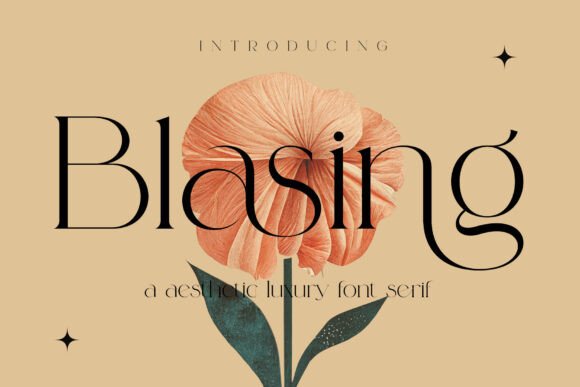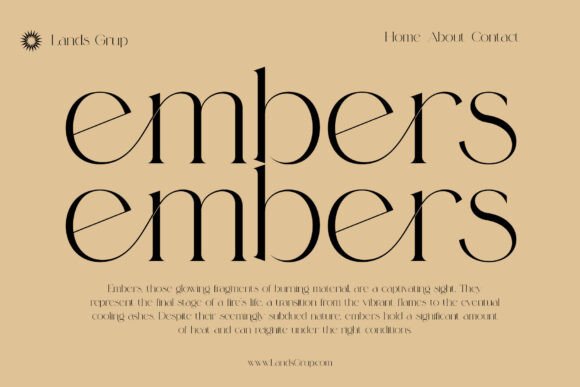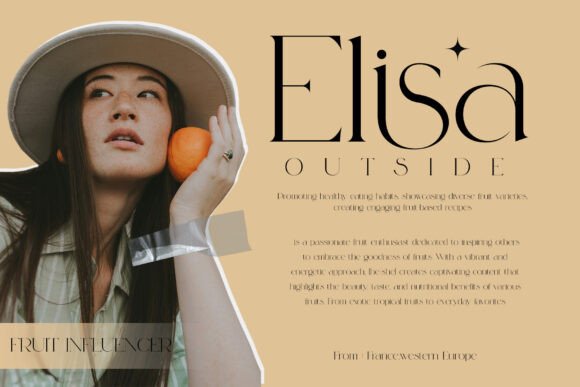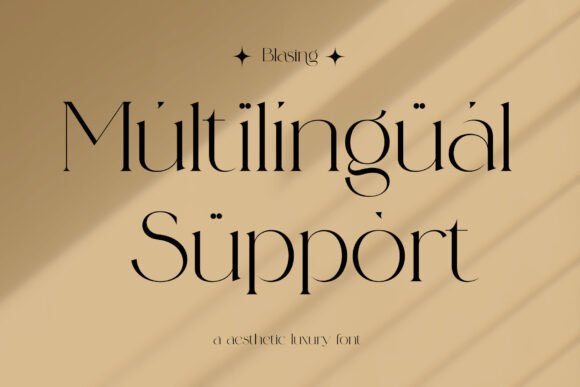
Blasing Font: Elegant Serif Typography for Modern Branding & Wedding Design
About the Blasing Font
Discover the charm of Blasing Font. This font is a perfect blend of modern aesthetics and classic appeal. Blasing is an elegant ligature serif modern font that evokes the beauty of fresh blooms and timeless elegance. With its bold yet refined ligatures, Blasing stands out as a sophisticated and feminine typeface. Perfect for upscale designs, whether for florals, fashion, or high-end branding, Blasing pairs the charm of classic serif styles with a modern twist. Every letter feels intentional, with a soft and graceful presence that elevates any project it touches.
Blasing Font Usage Examples
Blasing Font Example